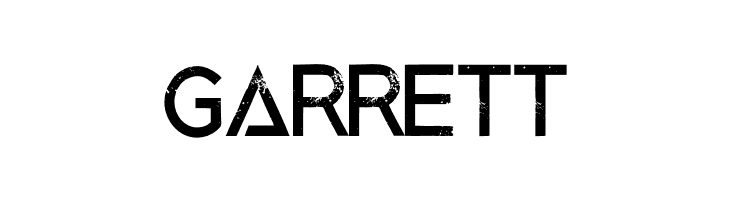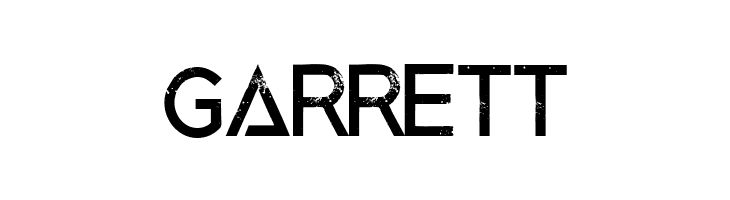
An intricate, chaotic font with overlapping loops and lines, ideal for creative projects.
A bold, distressed font with a rugged, vintage appearance.
An ornate and intricate Blackletter-style font with high contrast and decorative flourishes.
A bold, decorative font with a forest silhouette integrated into each character.
A bold, Gothic-inspired font with intricate details and angular forms.
A bold, modern font with thick strokes and wide spacing, perfect for headlines.
A bold, dynamic script font with high contrast and flowing connections.
A bold, cursive script font with a modern and expressive style.
A playful, hand-drawn font with bold outlines and a whimsical style.
A bold, zigzag-patterned font with a dynamic and energetic style.
A bold, geometric font with thick borders and a modern, digital-inspired style.
A bold, expressive, hand-drawn font with dynamic strokes.
A bold, organic font with a playful, hand-drawn appearance.
A bold, playful font with a 3D melting effect and thick outlines.
A bold, 3D italic font with a playful, hand-drawn style.
A bold, playful font with thick, rounded characters and a retro vibe.
A bold, italic, and playful font with thick, wavy strokes and a dynamic style.
A bold, condensed font with a playful, hand-drawn style.
Bold, condensed, and italic with a dynamic, fluid style.
A bold, expanded font with wavy, irregular edges for a playful look.
A bold, expanded, and italicized font with a dynamic, fluid style.
Bold, italicized font with a heavy, playful style.
A bold, playful font with a leftward slant and rounded, irregular shapes.
A bold, slanted font with a playful, dynamic style.
A bold, playful font with an irregular, organic design.
A bold, playful font with staggered, irregular letterforms and a quirky, organic style.
A bold, staggered italic font with a playful, hand-drawn style.
A bold, angular blackletter-inspired font with a modern twist.
A decorative and ornamental typeface with intricate flourishes.
A bold, modern sans-serif font with strong geometric shapes.
A playful, casual handwritten font with flowing, slightly irregular letterforms.